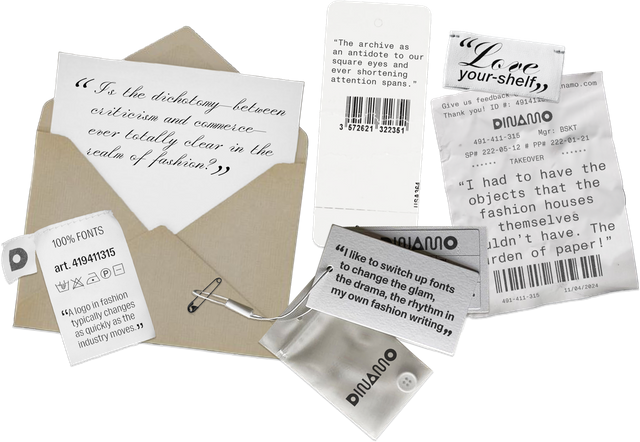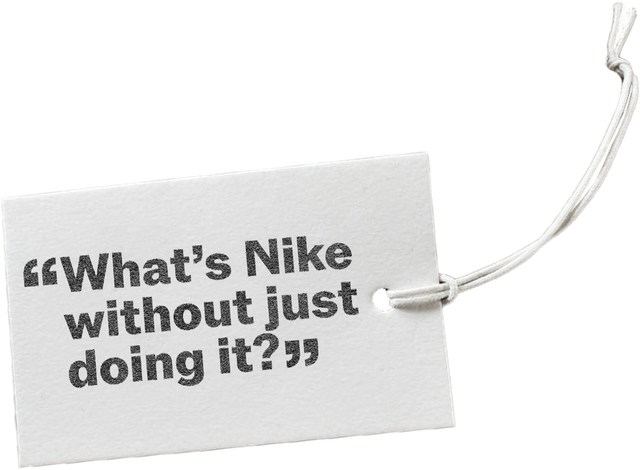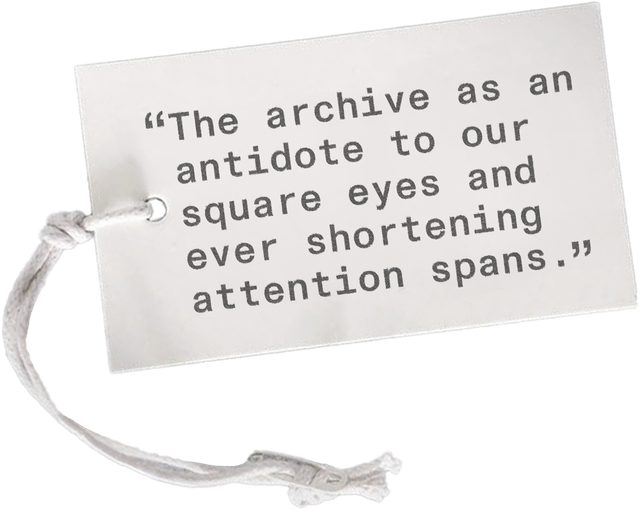
“What’s Nike without just doing it?” —
Welcome to our latest guest takeover issue of The Dinamo Update.
For these special mailings, I invite artists, writers, and other friends to think about design and fonts from a cultural or social perspective. And this time, Oslo-based Elise By Olsen writes on the graphic design of fashion—and why all the little pieces of ephemera around the industry are actually some of the worthiest things of collecting.
Elise By Olsen (b. 1999) is an editor, publisher, and the founding director International Library of Fashion Research, a cultural institution in Oslo, Norway. We’ve known her for years—and sent many of our fonts to her various publishing rooms. Elise created and edited the youth culture magazine Recens Paper (2013-2017) and the fashion commentary publication Wallet (2018-2021). In 2018 Gucci made a documentary about her work and in 2019 she guest-edited AnOther Magazine, where she currently writes one of my favorite monthly columns, “Paper View”. Over to Elise.
Trash Fashion!
By Elise by Olsen
Once, as a young aspiring fashionista, I went to Paris Fashion Week for the first time. I was 15 and accompanied by my mother. Before leaving I had printed out the official calendar from Paris Fashion Week’s glamorous website, and ticked off all the shows I wanted to attend with a red ballpoint pen. The most coveted show was, for me, back then, the Dior one. I believe it was the first collection by the then newly-appointed creative director Maria Grazia Chiuri, post-Raf Simons. I stepped up to the show’s designated venue, little me facing a colossal mirror-clad structure, by, I later learned, Bureau Betak.
The structure was placed in the cour carrée, the iconic courtyard of the Louvre. The facade reflected this historic site in the heart of the city. Gasp! I was amazed. Camera flashes from street style photographers hit the mirror wall panels and bounced back at bloggers, influencers, and over-the-top industry figures like a large reflector. Editors-in-chief and celebrities passed by the crowds and went inside. To see and be seen. Somewhere between a panic attack and Stendhal syndrome, I was already amazed by the show, even before entering myself, and even before the models and clothes.
My mother waited outside in the cour carrée with a cigarette in her hand as I snuck into the show—without invitation. I ran through the entrance, passed the uptight black-tie security guards, into long tubes that made a tunnel, which opened into a large spaceship-like hall, with stepped seating. The guests were already seated as security ran after me. Go, go, go! The lights dimmed just as I hid in the back row, camouflaged behind someone’s large, lavish hat. Lights dimmed. Guards stepped out. Models stepped in, onto the runway through a sequence of arched apertures, wearing grandiose habits. Showtime! As soon as it was over, the lights went back on. People left the premises in a hurry, likely to make it to the next one, or to get ahead of the taxi-lines that occupied the entire city during fashion week.
Top right: Elise’s stolen Dior invite, currently on display in the exhibition “Ephemeral Matters. Into the Fashion Archive” at the National Museum for Norway. Photo by Magnus Gulliksen.
Now, I love a good fashion show, but it’s what happened next that gave me an epiphany and that ultimately inspired my current infinity-project. Tightly dressed staff —interns?—immediately started vacuuming the floor. I stepped out of the nook I was hiding in and started picking up every invitation left behind on the front rows. Eureka! The invitations were precious. Grey stock, soft and gummy-like texture. The Dior logo embossed. Artistically presented, with handwritten names on them. Mademoiselle this-and-that. One man’s trash, et cetera!
I have no idea if people left the invitations behind deliberately, as an etiquette, a critical standpoint, or out of laziness, but they must have been expensive to make, I thought. And if I hadn’t picked them up they’d be thrown in the bin. These first rescued discards, show invites with strangers’ names on them, prompted my collection of fashion show remnants and remains that today makes up the collection of the International Library of Fashion Research in Oslo. What’s Nike without just doing it?
A library is both “symbol and reality of universal memory,” as author Umberto Eco said. I founded the International Library of Fashion Research in 2020, as a specialized library focused on fashion-related print materials. I wanted these historical documents, from books to magazines to show invitations (like my precious Dior invite) to press releases, things with high artistic production value as well as more rudimentary objects, to be available and accessible for everyone.
Given the increasing priority for everything to be digital, it felt crucial—perhaps more than ever—to preserve, document, and mediate fashion-focused printed matter, and to have it consolidated in one place. Thus, I wanted to create a meeting point for all kinds of researchers, professionals, and fashion enthusiasts worldwide to consult with this tactile material.
As digitization threatens the tradition of physical archiving, I wanted people to smell these objects, to touch them, to grapple with them with bare hands. To experience a slower, more thorough digest of information than what we are used to in this fast and accelerated digital climate. The archive as an antidote to our square eyes and ever shortening attention spans.